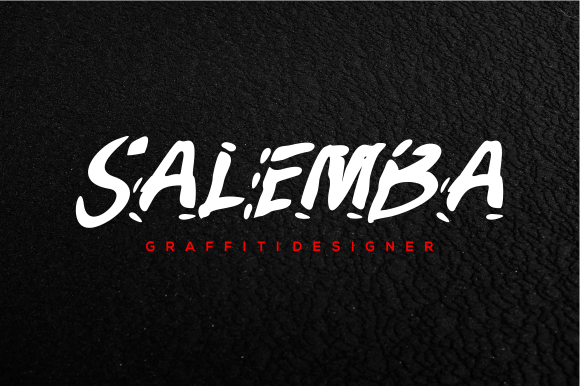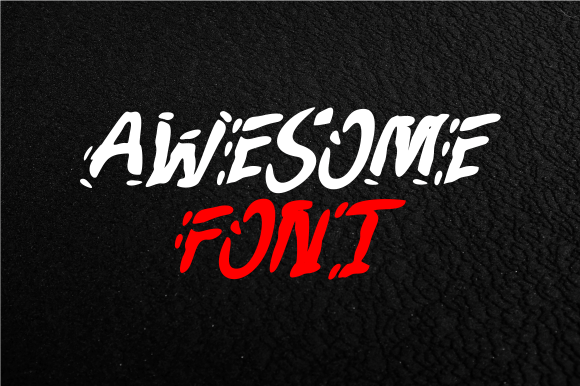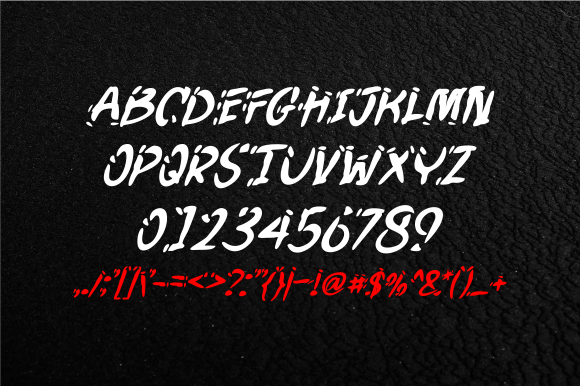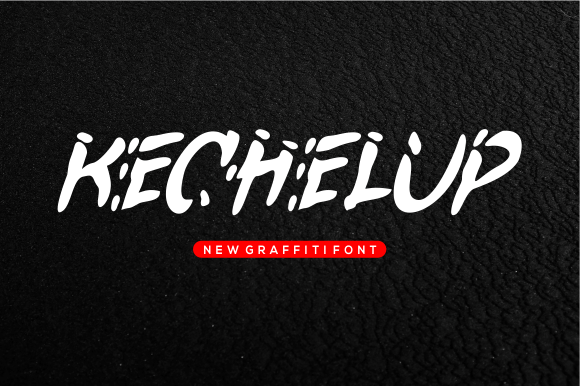
Introduction to Kechelup Font
Kechelup is a fun and casual handwritten font.
Whether you use it for cartoon-related designs, children’s games, or just any creation that requires a lovely touch, this font will be an amazing choice .
Key Features of Kechelup Font
Why Choose Kechelup Font?
Kechelup Font offers exceptional quality and versatility, making it a valuable addition to your design toolkit. Whether you’re creating for personal projects or commercial use, Kechelup Font delivers professional results.